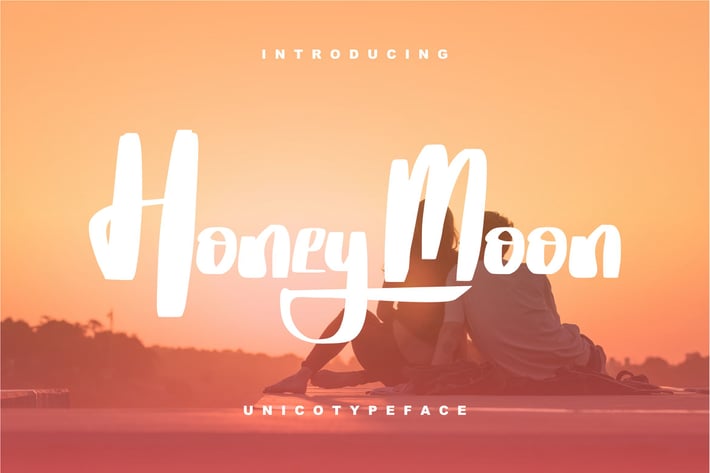
Honey Moon | Unicotypeface Font
Honey Moon | Unicotypeface Font with a calligraphy style, So beautiful on invitation like greeting cards, branding materials, business cards, quotes, posters, and more!